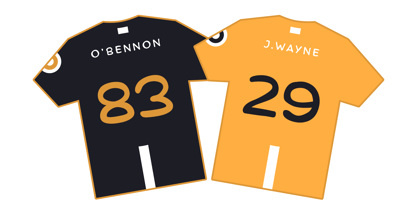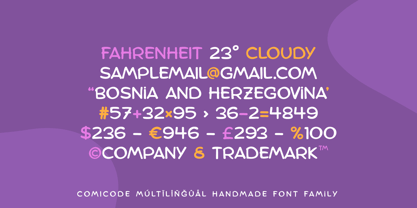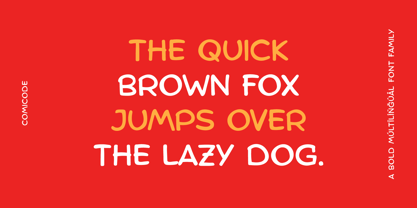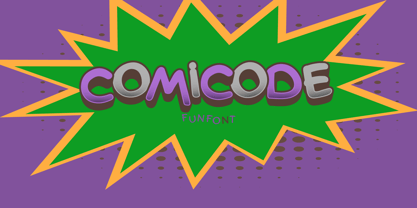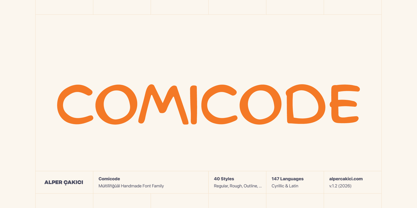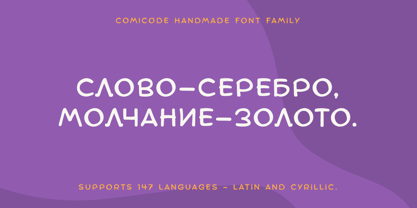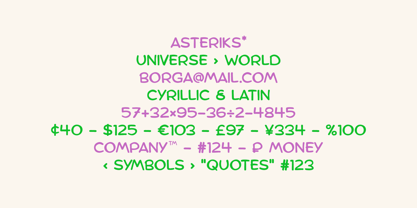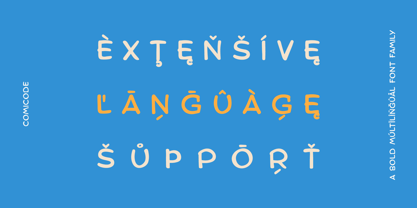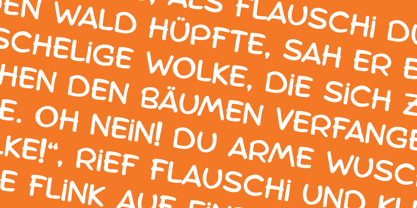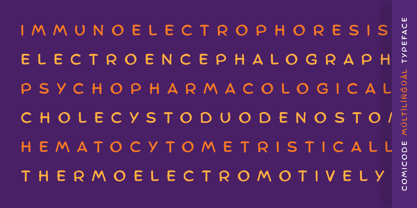
Comicode
Die Schriftfamilie Comicode wurde von Alper Çakıcı entworfen und von AlperCakici veröffentlicht. Comicode enthält 40 Stile und Familienpaketoptionen. Mehr über diese Familie
Comicode is a bold, expressive display typeface built to feel alive on the page. Inspired by natural hand movement and comic-style energy, it brings warmth, rhythm, and attitude to headlines, posters, branding, packaging, and creative projects that need character. With 40 stylistic instances spanning clean strokes, rough textures, outlines, and dynamic effects, Comicode gives designers a wide range of moods—from playful and friendly to gritty and dramatic—while staying visually cohesive. Each style is carefully crafted to maintain readability while embracing an organic, hand-drawn feel. Comicode supports 147 languages and is ideal for editorial design, children’s content, logos, social media graphics, merchandise, and any project that benefits from a lively, human touch.